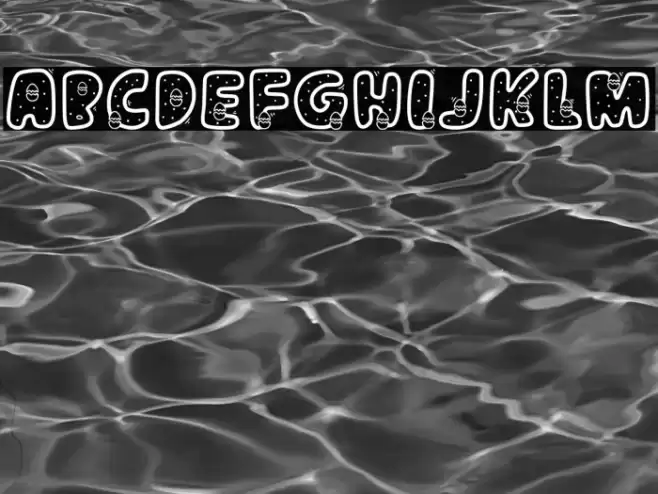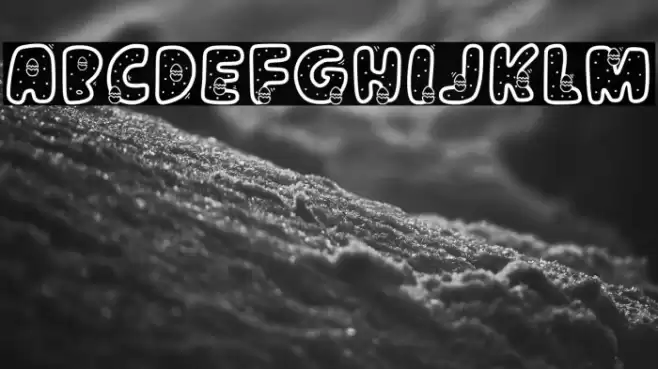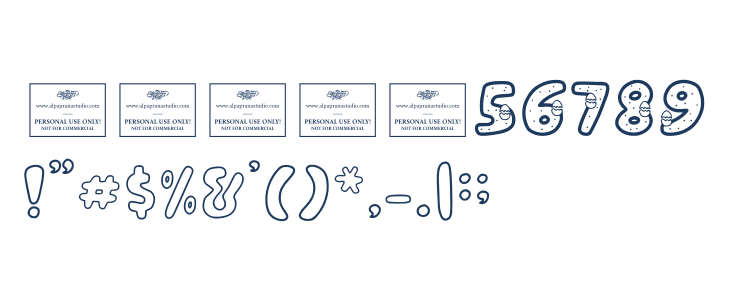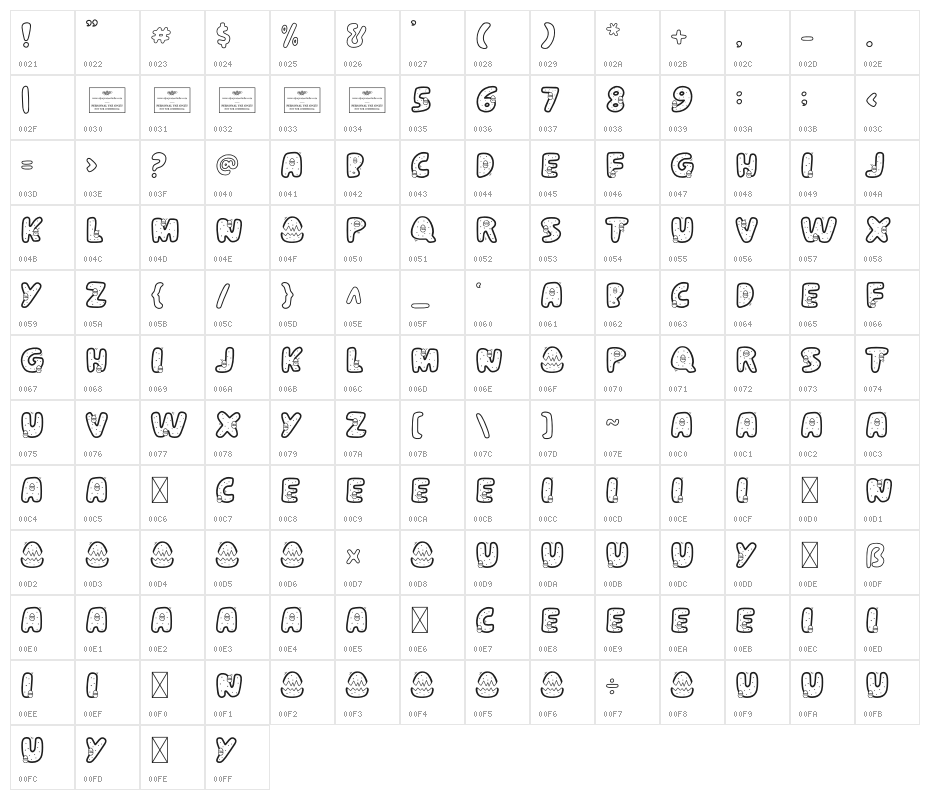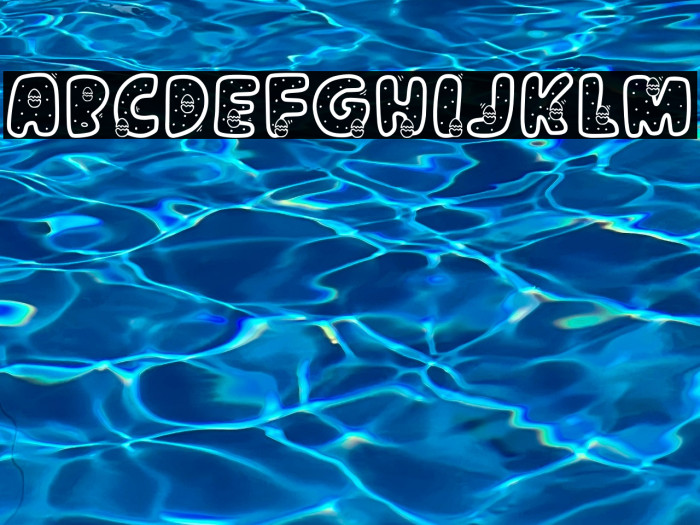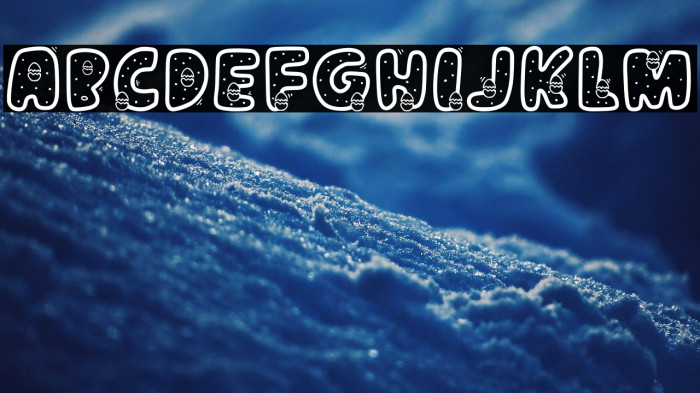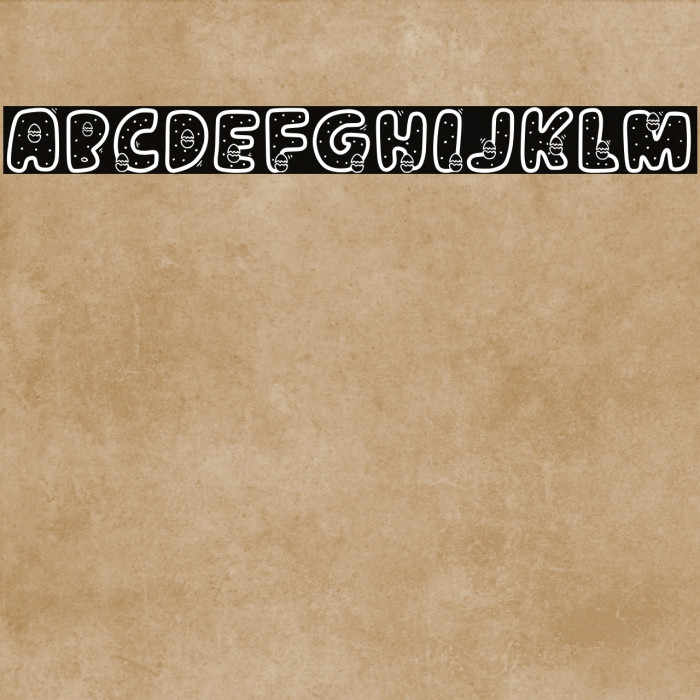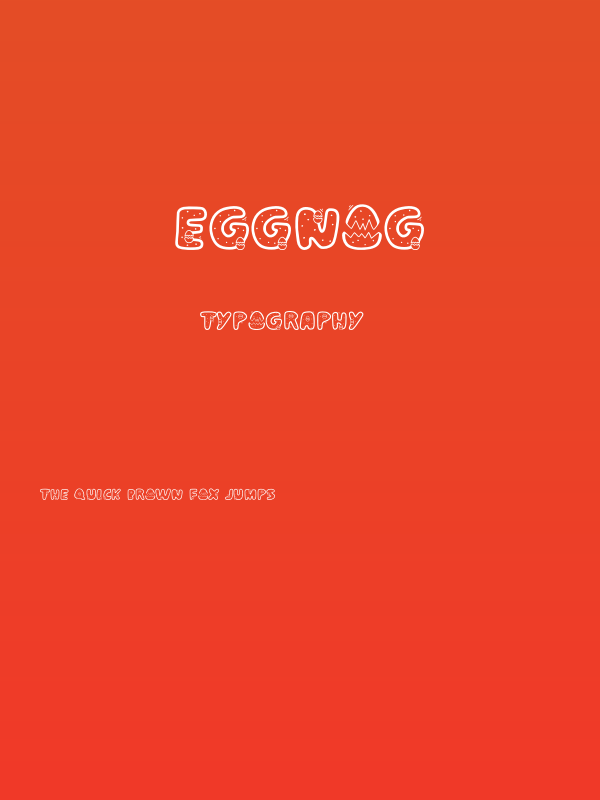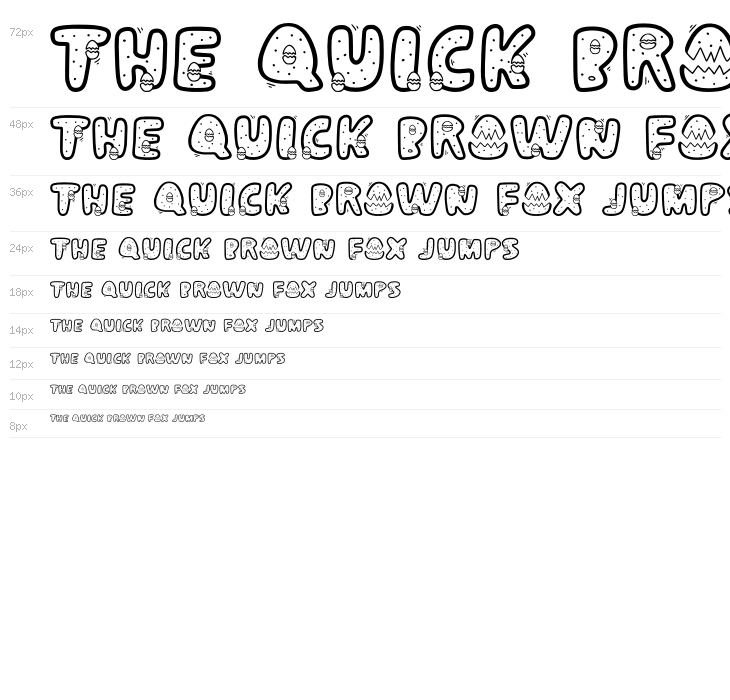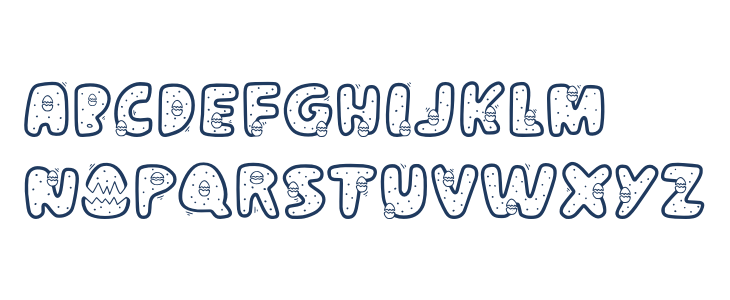
Eggnog Font
Eggnog Description
This playful and whimsical font features a unique design with each character adorned with decorative elements reminiscent of holiday cheer. The letters are bold and rounded, with a hand-drawn feel that adds a touch of fun and creativity. The interior of each character includes festive patterns, such as dots and swirls, enhancing its decorative appeal. The font maintains a consistent thickness throughout, providing a uniform appearance while allowing the decorative elements to stand out. This style is perfect for projects that require a joyful and festive touch, capturing the essence of celebration and warmth.
A playful, decorative font with festive patterns and a hand-drawn feel from Uncategorized fonts.
- Font: Eggnog
- Proposed Projects: Ideal for holiday cards, festive invitations, children's party decorations, and playful branding.
- Use Case: Headlines, Logos, Invitations